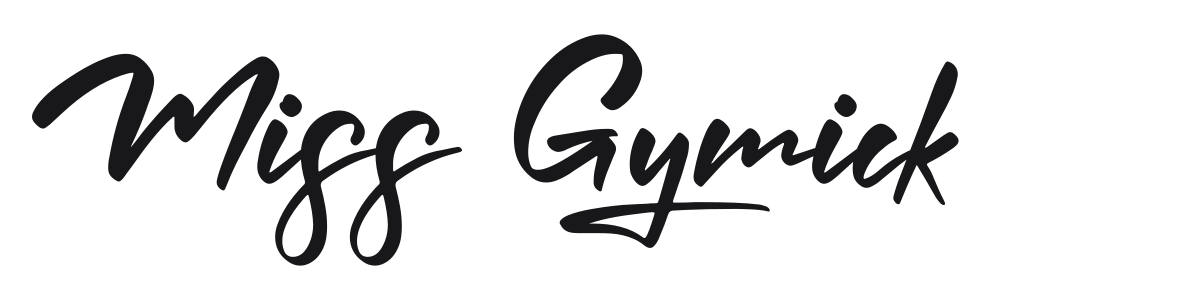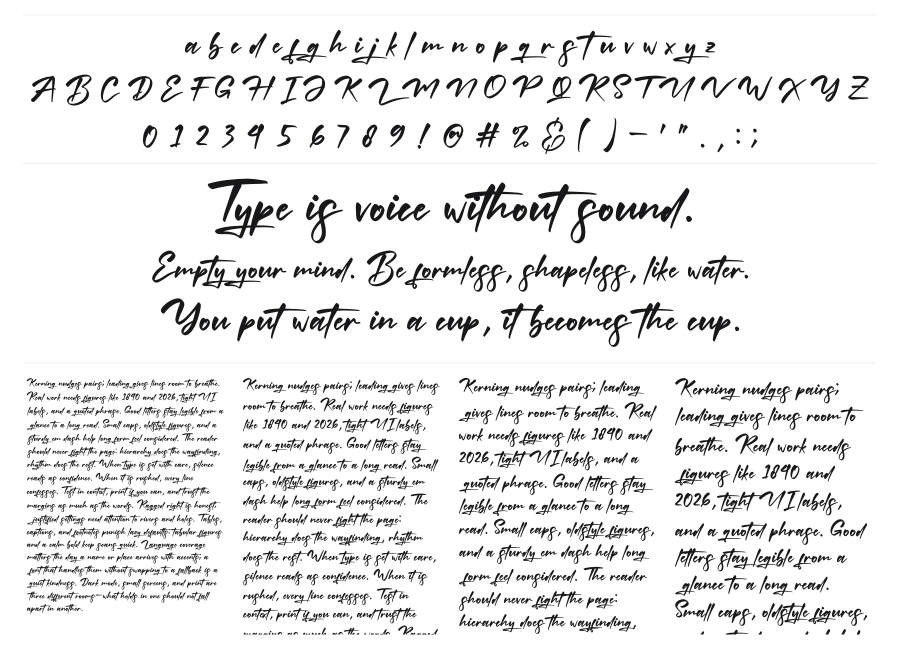
Miss Gymick
Miss Gymick is a lively casual brush script with the look of a freshly inked signature. High contrast between thick swells and fine hairlines gives it energy, while the natural variation in stroke width keeps it feeling genuinely hand-drawn rather than mechanical. It works well for logos, packaging, and any headline that needs warmth and personality.